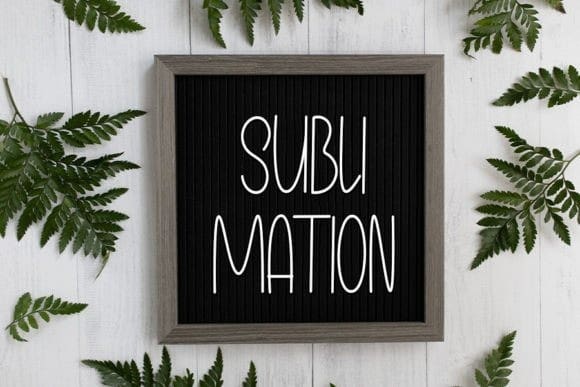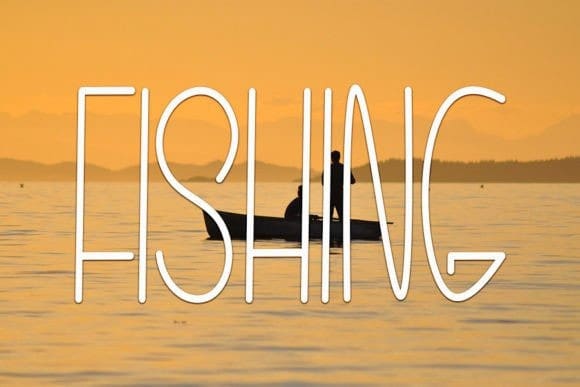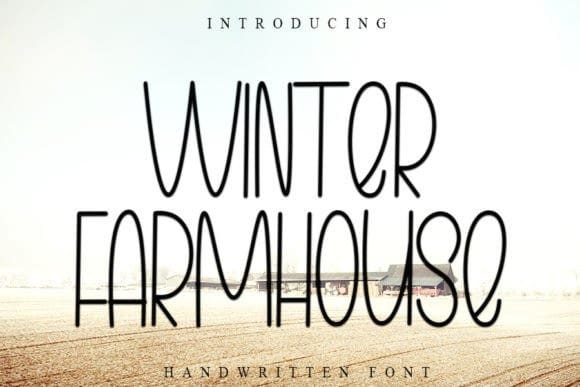
Winter Farmhouse Font
Winter Farmhouse Font is a neat and beautiful handwritten font described by an elegant touch, perfect for your favorite projects. Fall in love with its incredibly distinct and timeless style, and use it to create spectacular designs!